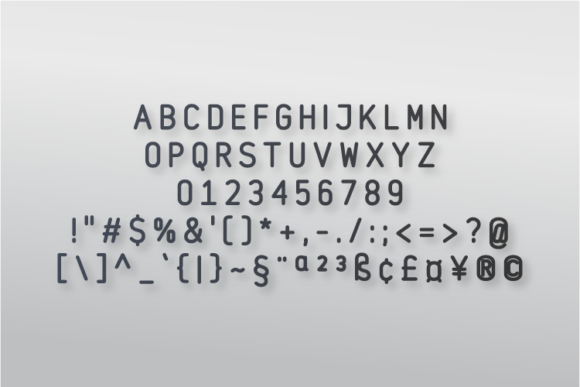
Introduction to Margaretto Font
Margaretto is a simple and cute sans serif font with an undeniably clean feel.
With its neat and beautiful arrangement of letters, this typeface will look outstanding in both formal and non-formal designs .